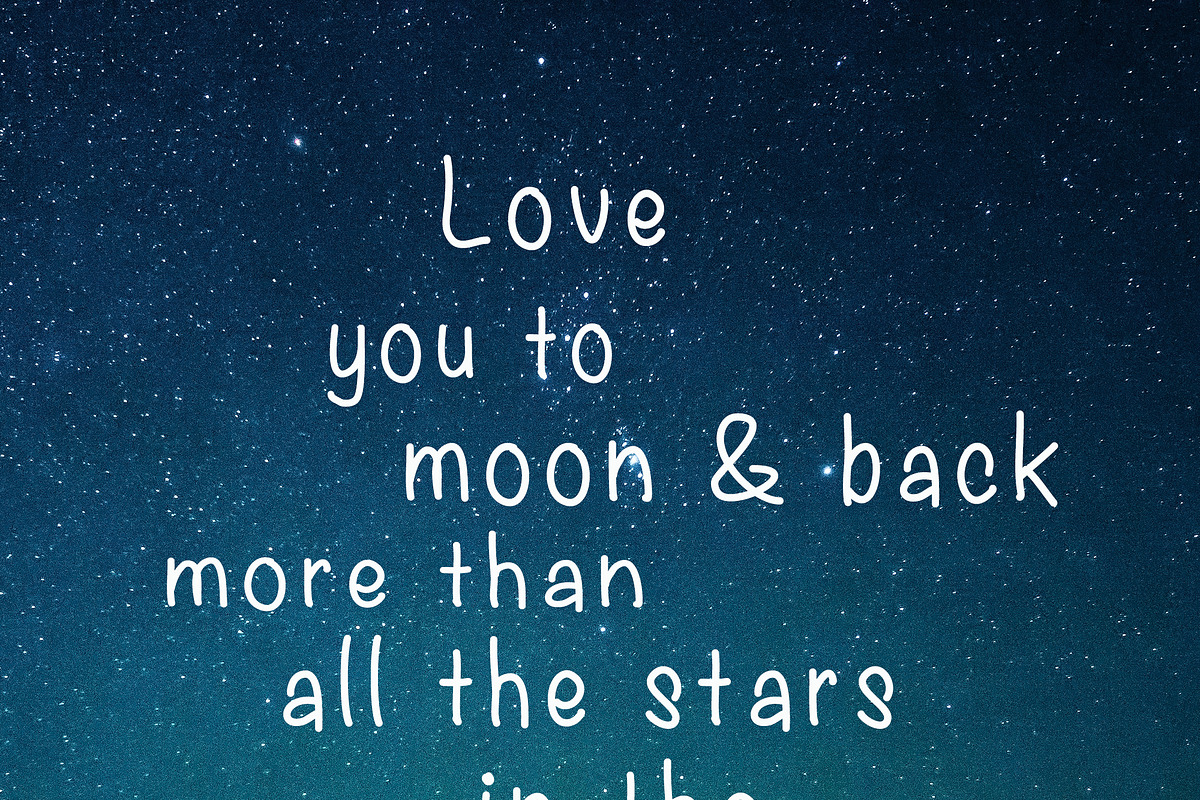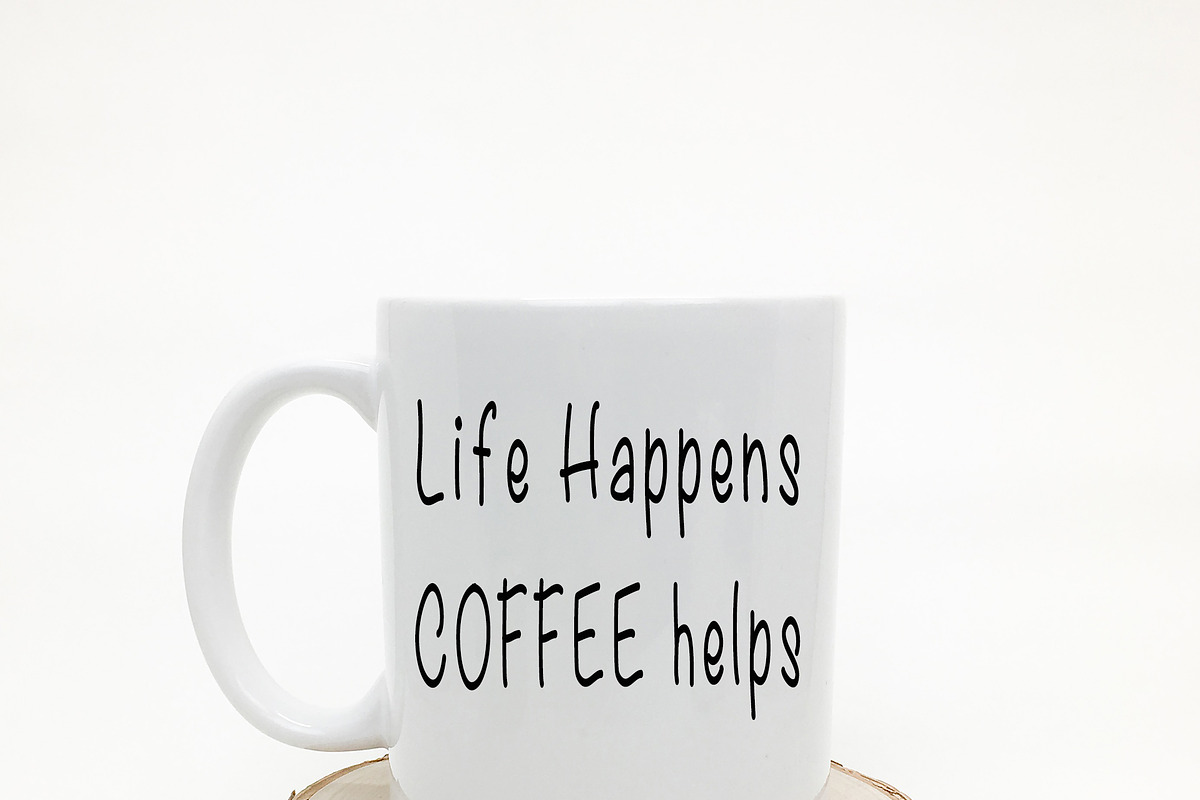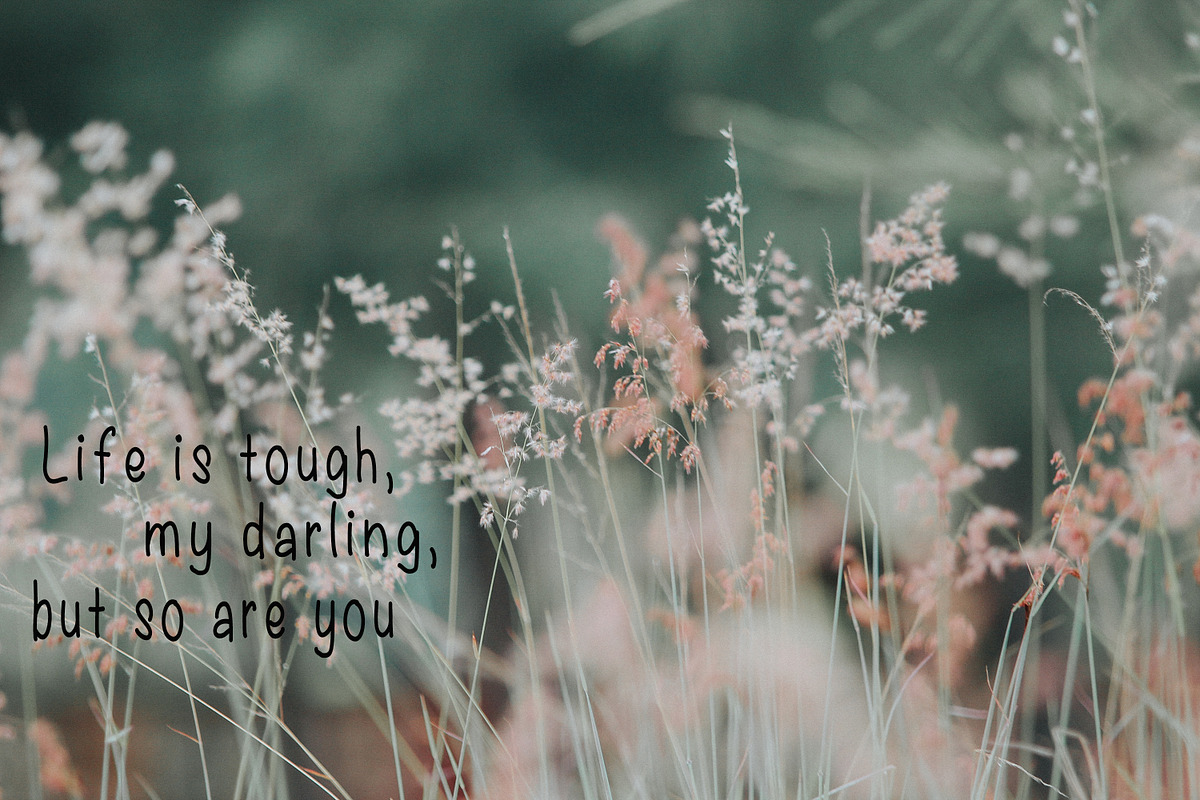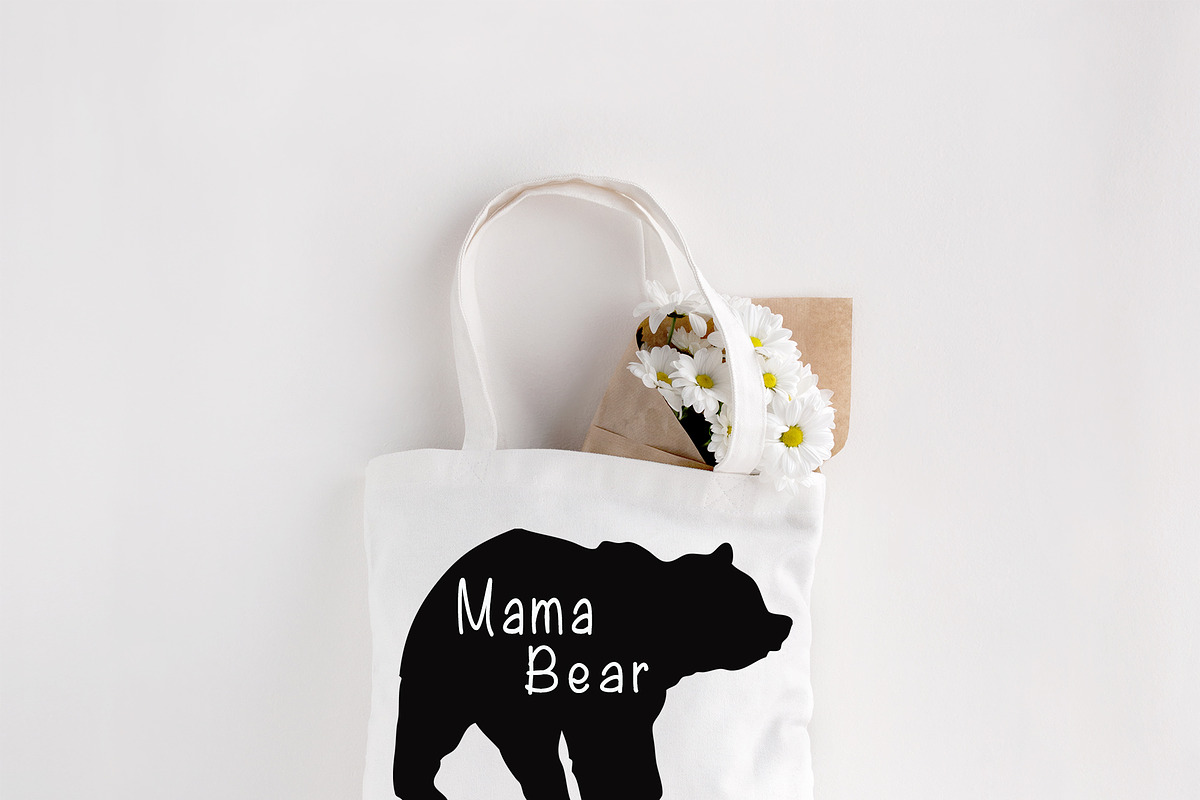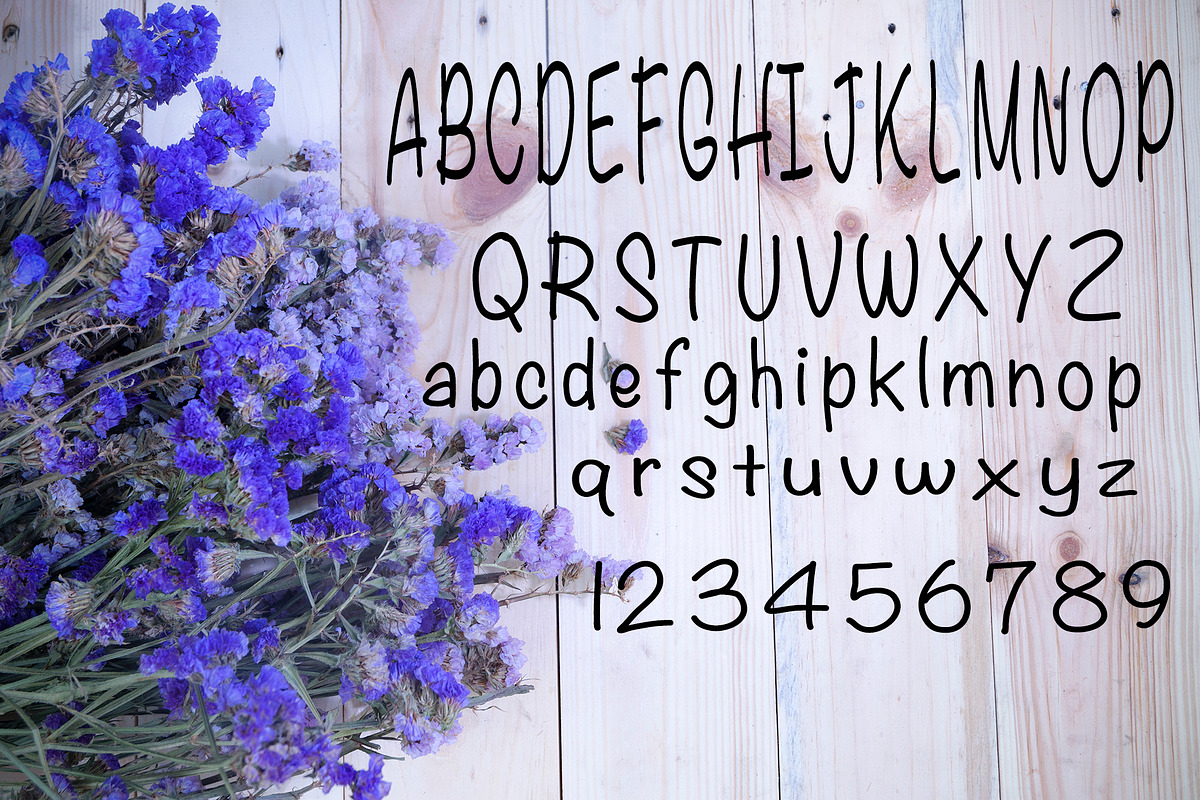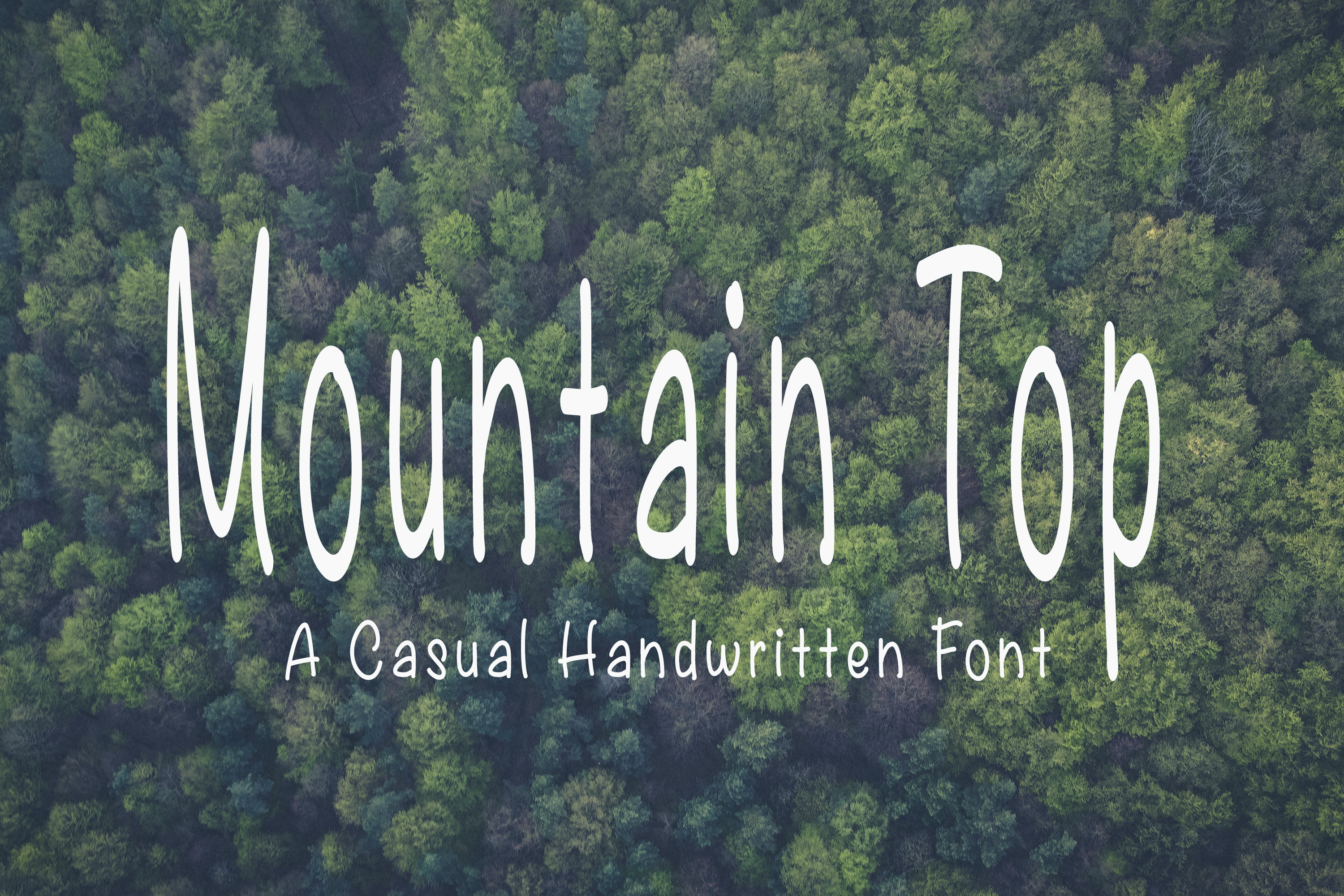
Mountain Top Handwritten Font
Mountain Top is a casual handwritten font that includes a full set up upper and lower case letters, numerals, and a large set of punctuation